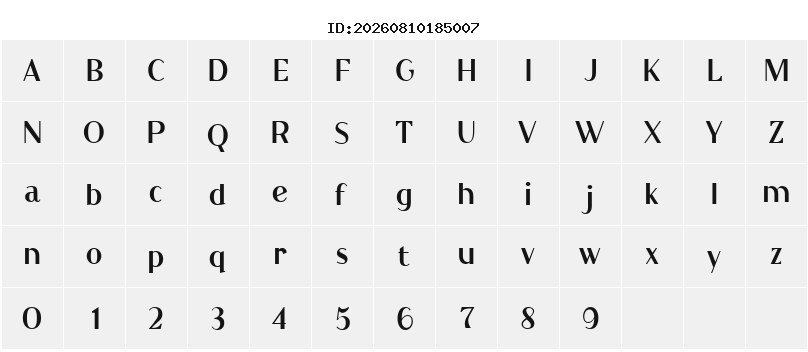
• Font Name: Qualettee
• Full Font Name: Qualettee Bold
Qualettee.ttf is a modern, elegant sans-serif font designed for ultimate readability and visual harmony. Perfect for branding, headlines, web design, and print materials.